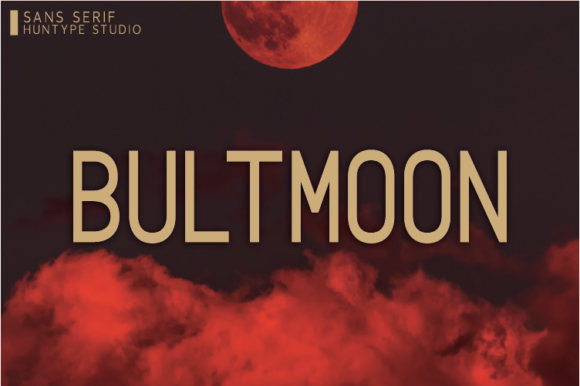
Introducing Bultmoon, a sans serif font family that exudes simplicity, elegance, and versatility. Crafted by the talented team at Huntype, Bultmoon is a breath of fresh air in the world of typography. With its clean lines, open letterforms, and a touch of playfulness, Bultmoon is the perfect choice for designers and creatives seeking to make a statement.
At first glance, Bultmoon captivates with its unpretentious charm. Its sans serif design lends a modern and minimalist aesthetic to any project, while its carefully crafted curves and terminals add a touch of warmth and personality. Whether you're designing a logo, a poster, or a website, Bultmoon effortlessly elevates your work with its timeless appeal.
What sets Bultmoon apart is its versatility. Its wide range of weights and styles allows you to adapt it seamlessly to any design concept. From delicate hairlines to bold and impactful displays, Bultmoon effortlessly transitions from understated elegance to commanding attention. Its suitability for both print and digital media makes it a true all-rounder, ensuring your designs shine across multiple platforms.
With Bultmoon, you'll discover a font that goes beyond mere aesthetics. Its carefully considered kerning and spacing ensure optimal readability, making it ideal for long blocks of text. Whether you're crafting a captivating headline or an informative brochure, Bultmoon ensures your message is conveyed with clarity and impact.
Bultmoon's versatility extends to a wide range of applications. Its clean lines and strong personality make it a standout choice for logos, branding, and packaging design. Its legibility and readability make it perfect for editorial design, web design, and presentations. Unleash your creativity and explore the endless possibilities that Bultmoon offers.
Join the ranks of discerning designers who have embraced Bultmoon for its simplicity, versatility, and timeless appeal. With Bultmoon in your design arsenal, you'll create captivating designs that resonate with your audience and leave a lasting impression.